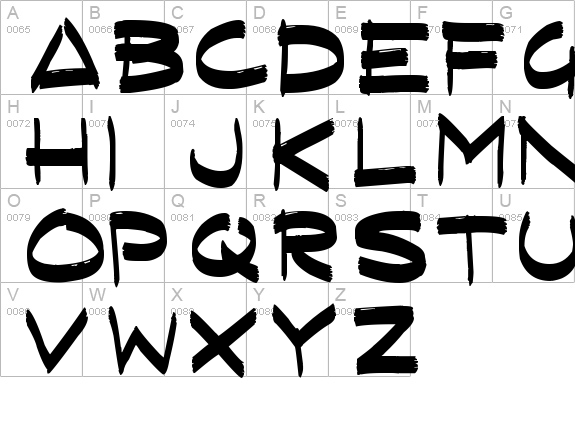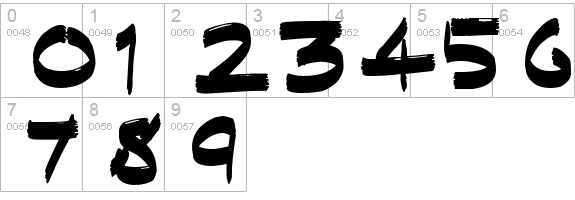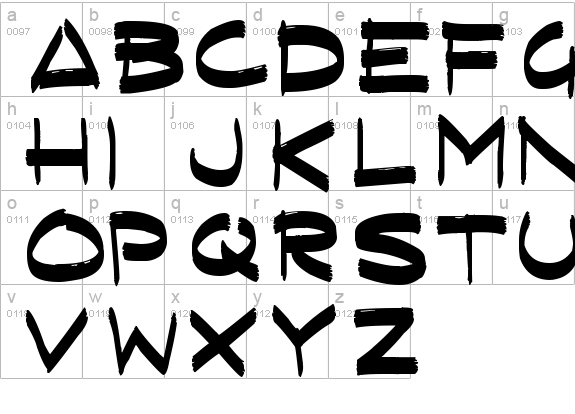
Fast Flash Brush Font Details
The Fast Flash Brush font is a dynamic and energetic typeface that exudes speed and modernity. Its bold strokes and sharp angles create a sense of movement and urgency, making it perfect for designs that need to make a bold statement. This font is versatile and can be used for a variety of projects, from posters and flyers to logos and branding.